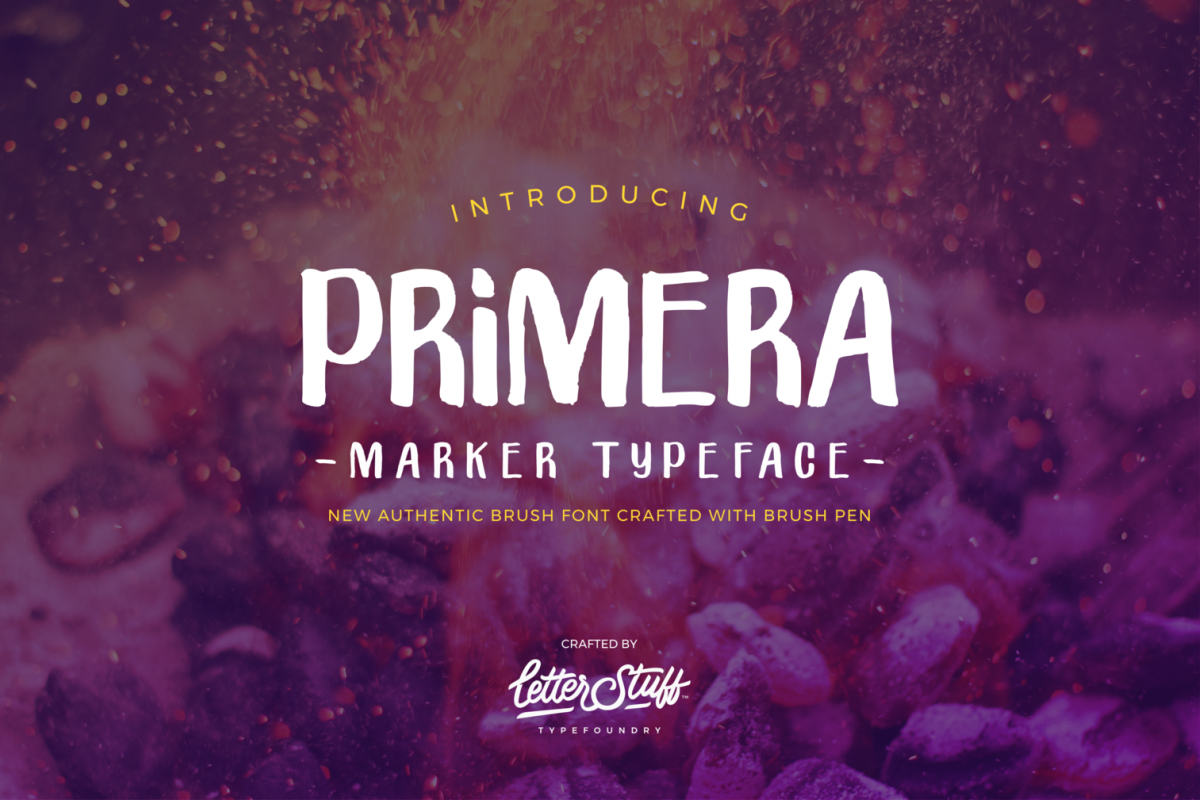
Primera Marker Typeface
Primera Brush Free Typeface is a new authentic brush font crafted with brush pen by LetterStuff™ Typefoundry. This marker-like typeface will work great on wide range of design work given its legibility and neat appearance.